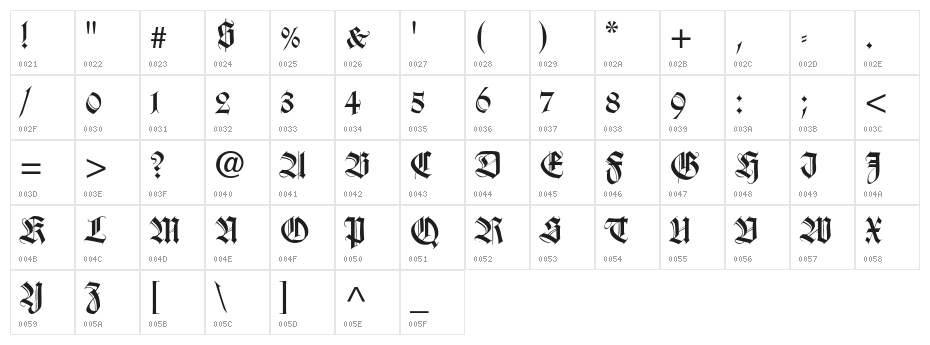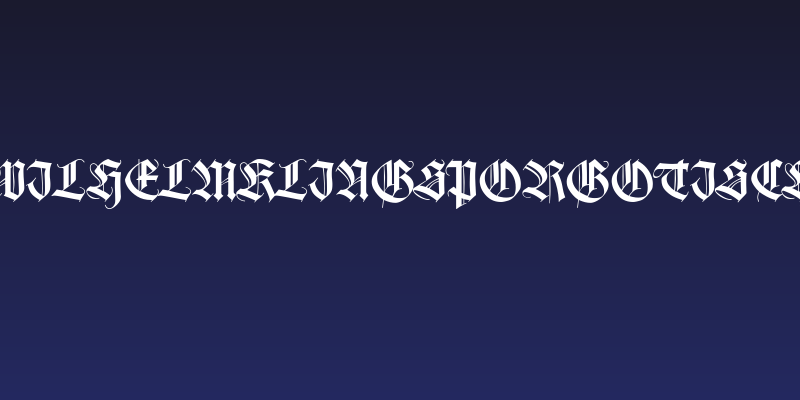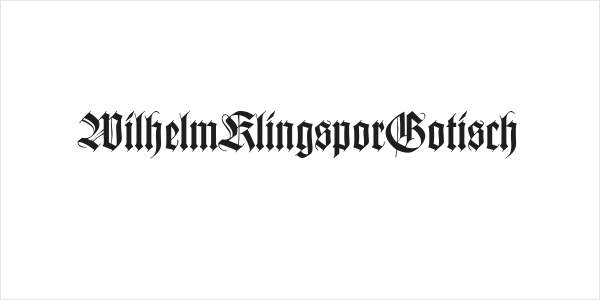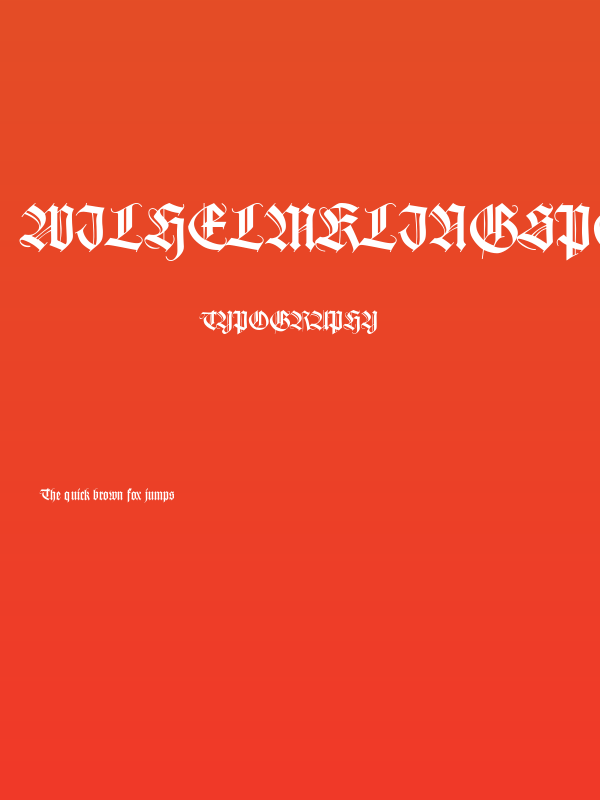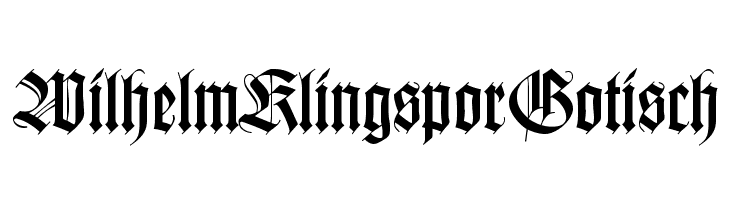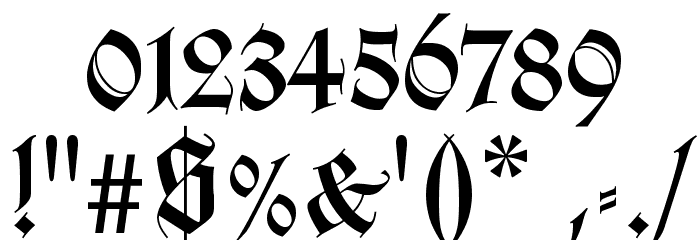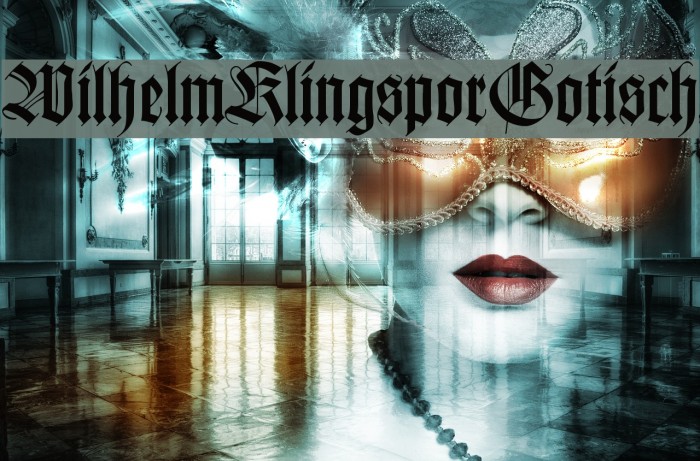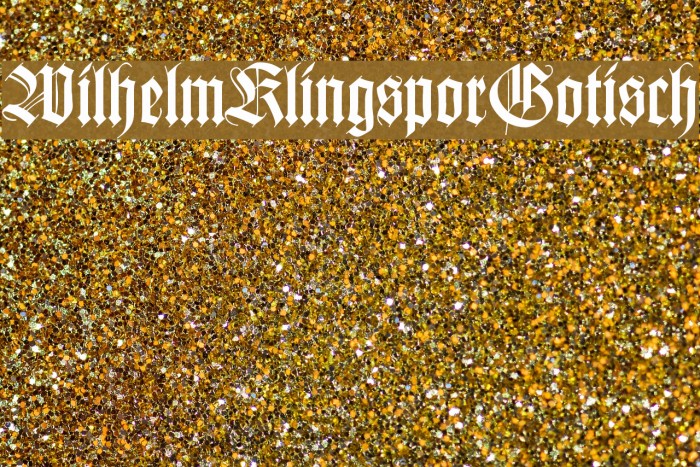
WilhelmKlingsporGotisch Font
WilhelmKlingsporGotisch Description
This font exhibits a traditional blackletter style, characterized by its intricate and ornate letterforms. The strokes are bold and angular, with sharp serifs and a distinct medieval aesthetic. Each character is crafted with a high level of detail, reflecting the historical roots of Gothic script. The uppercase letters are particularly elaborate, featuring decorative elements that enhance their visual impact. The lowercase letters maintain a consistent style, providing a cohesive look across the alphabet. Numbers and special characters are designed to match the overall theme, ensuring uniformity in any text composition.
| Overall Style | Vintage |
| Use Case | Logos, Headlines, Decorative text |
| Proposed Projects | Ideal for historical documents, certificates, wedding invitations, or any project requiring a medieval or Gothic aesthetic. |